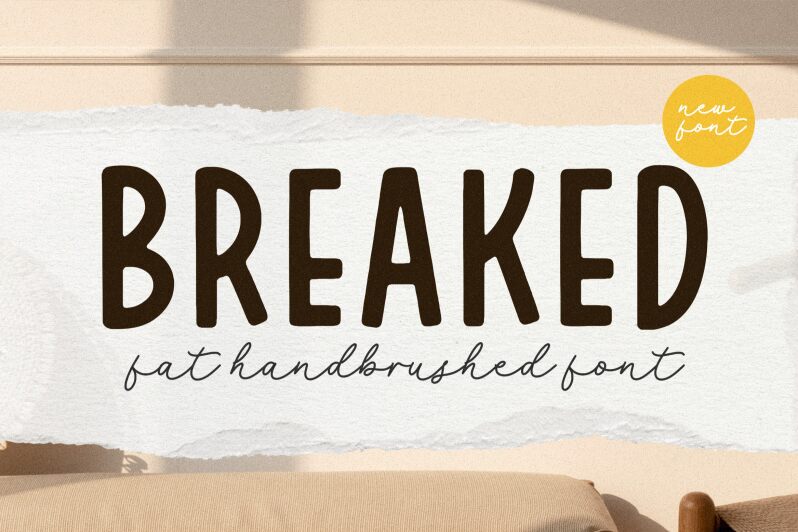
Breaked
Breaked, crafted by Letterative Studio, is a display font that boasts a condensed style, offering designers a bold and impactful typographic tool. Its strong presence and assertive character stem from its tightly packed letters, which make for an arresting visual statement. The font's compact nature does not compromise its readability – instead it adds to the overall dramatic effect.
With its distinct condensed flair, Breaked is particularly suited for headlines, logos, posters, and any project where space is at a premium yet visibility is paramount. Its assertive lines are designed to capture attention and convey messages with power and clarity. Whether used in branding or artistic compositions, this font stands out as a modern staple in the designer's toolkit.